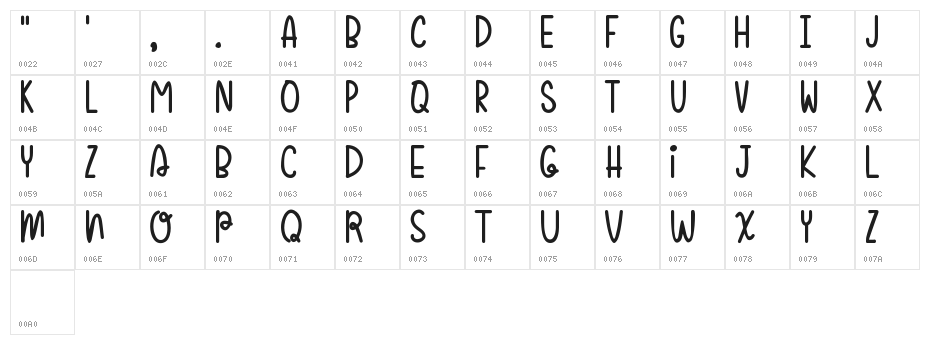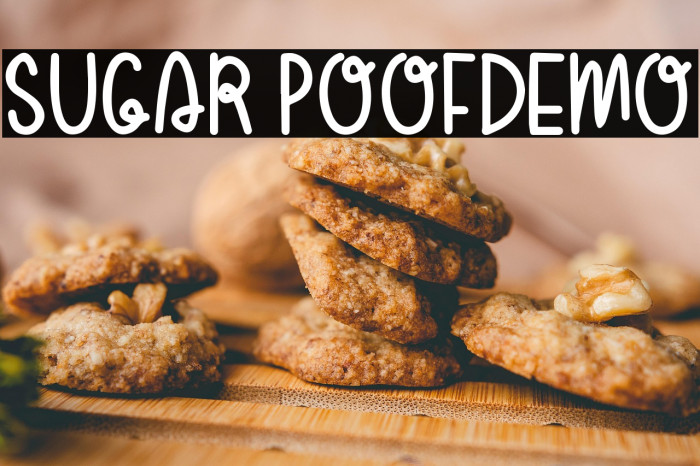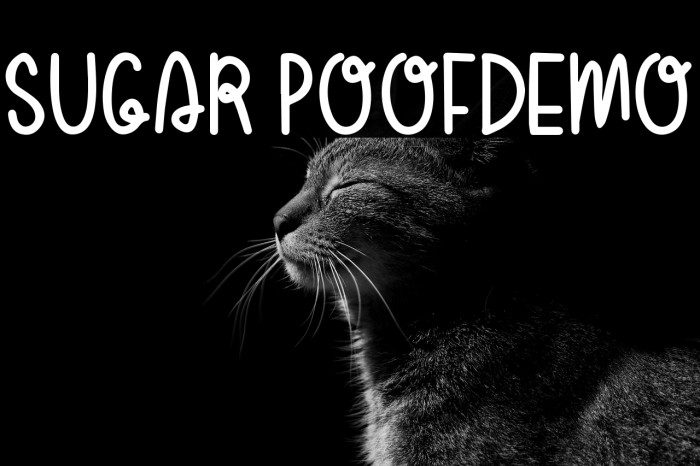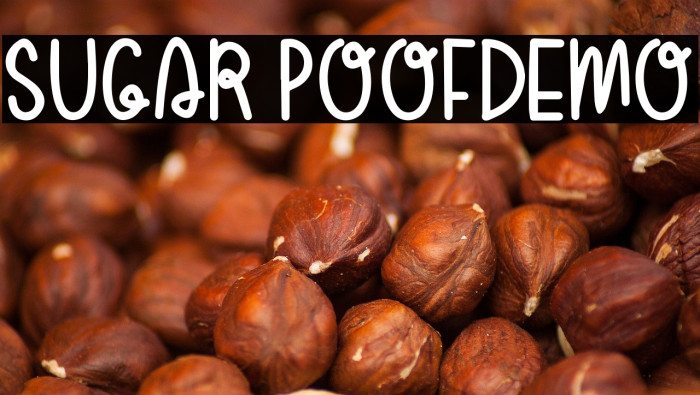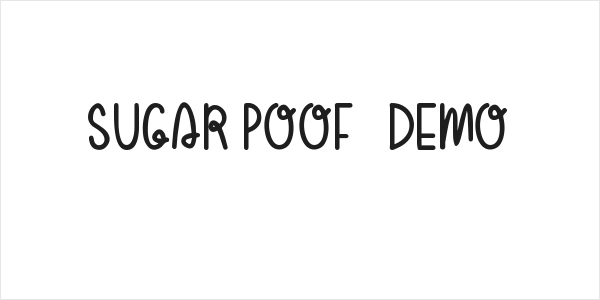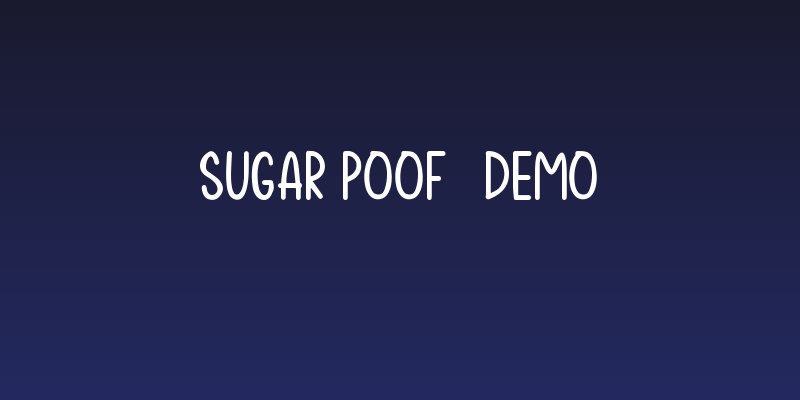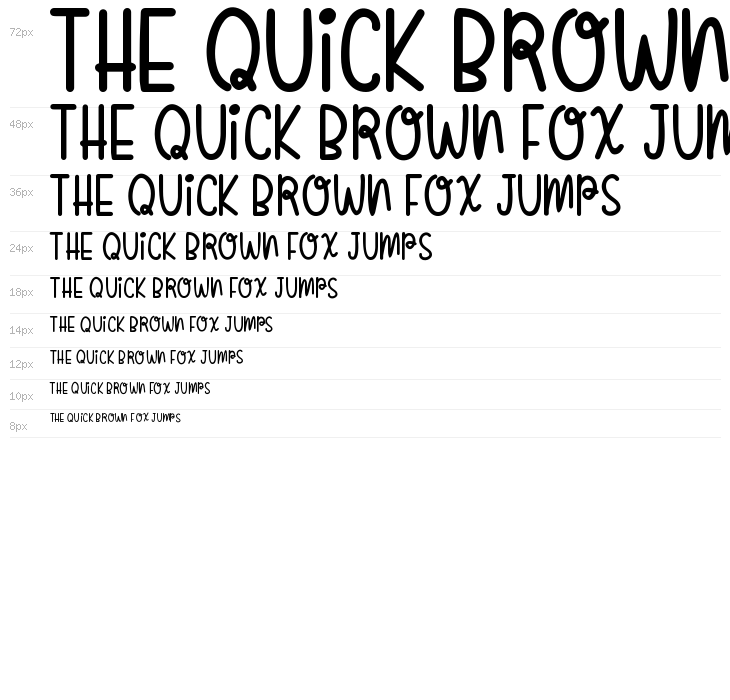
Sugar Poof-demo Font
Sugar Poof-demo Description
This playful and whimsical font features rounded, bubbly characters with a hand-drawn appearance. The letters are bold and slightly irregular, giving them a friendly and approachable feel. The strokes are consistent in thickness, contributing to a cohesive look across the alphabet. The font's unique style is characterized by its casual, informal vibe, making it suitable for creative and fun projects. Its distinctiveness lies in the exaggerated curves and loops, particularly noticeable in letters like 'G', 'J', and 'Q'. The overall design is both charming and lively, perfect for capturing attention in a lighthearted manner.